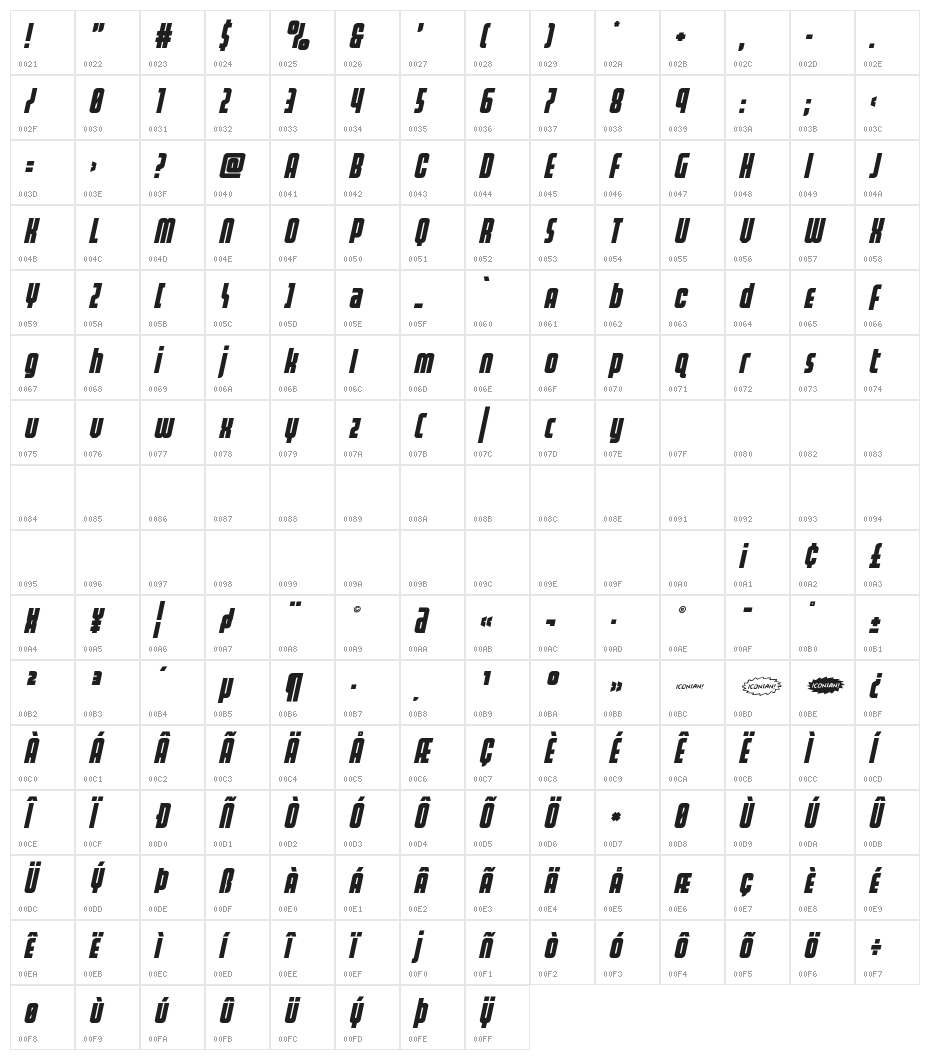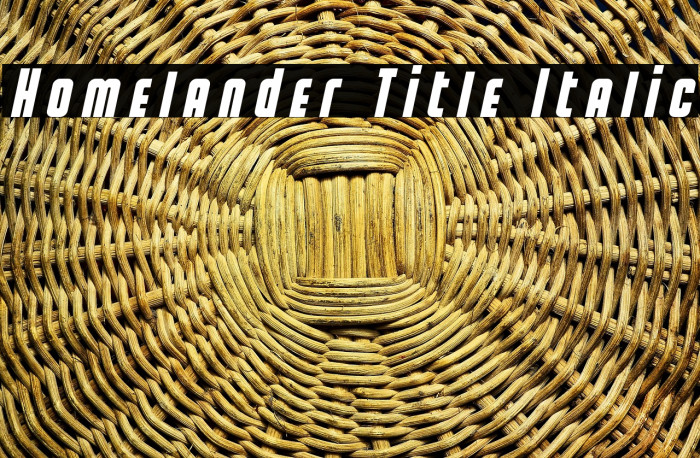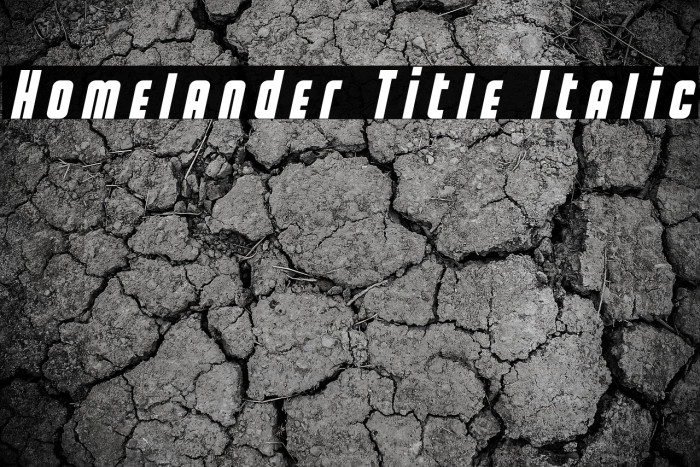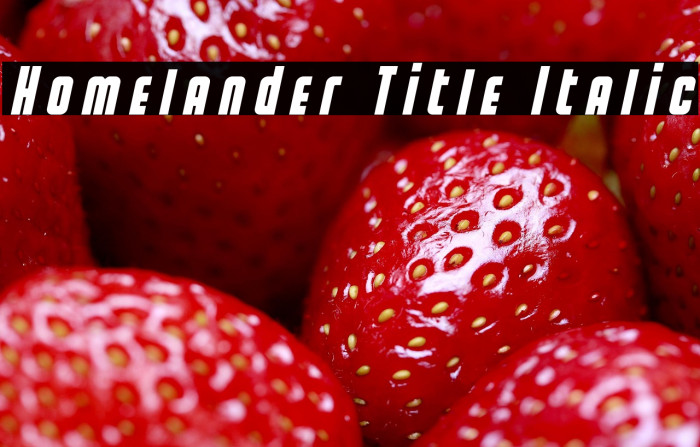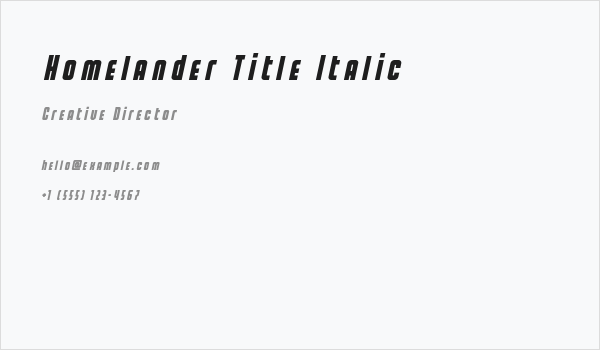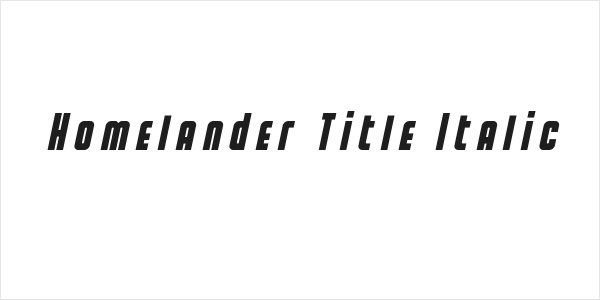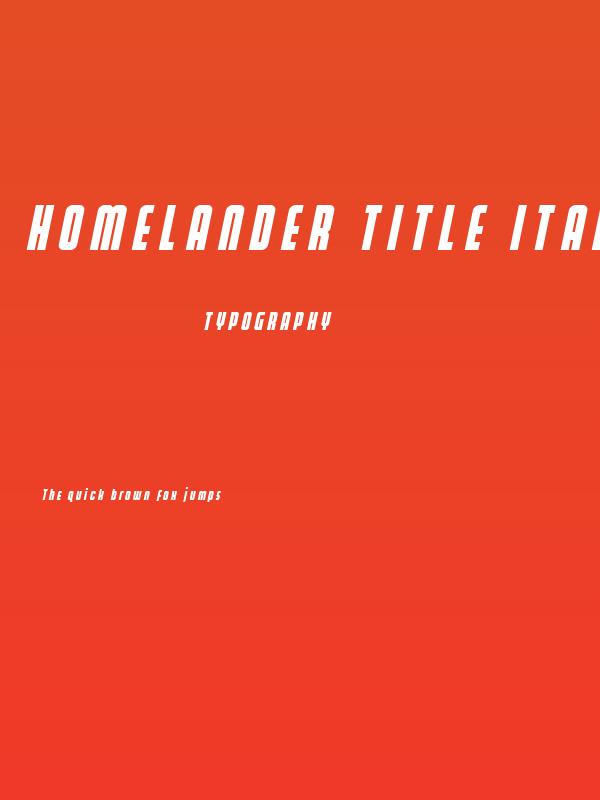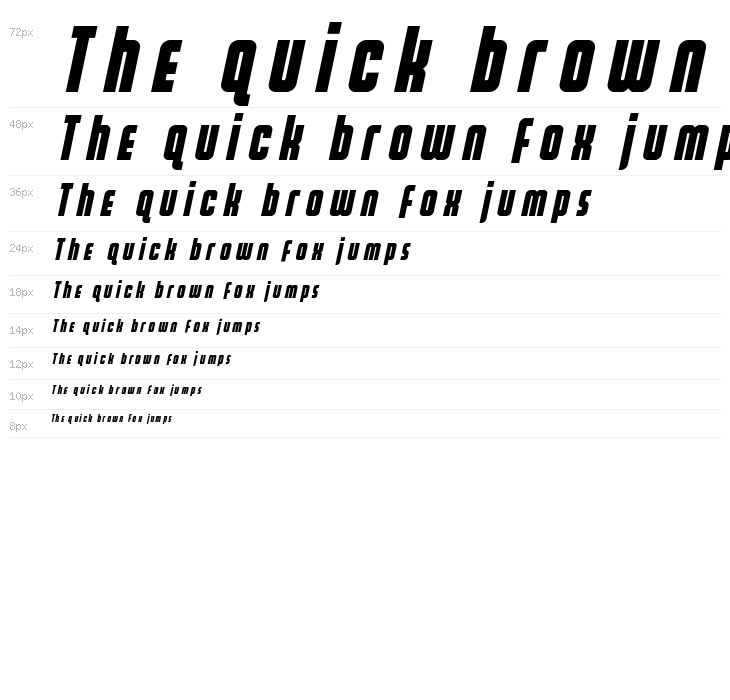
Homelander Title Italic Font
Homelander Title Italic Description
This font features a bold and dynamic design with a strong italic slant, giving it a sense of motion and urgency. The characters are thick and robust, with a slight narrowing at the top, adding a unique flair. The uppercase letters are tall and commanding, while the lowercase letters maintain a consistent style, ensuring readability. The numerals are equally bold, matching the overall aesthetic. Special characters are well-integrated, maintaining the font's cohesive look. This font is ideal for making a strong visual impact.
| Proposed Projects | Ideal for sports branding, action movie posters, dynamic logos, and attention-grabbing headlines. |